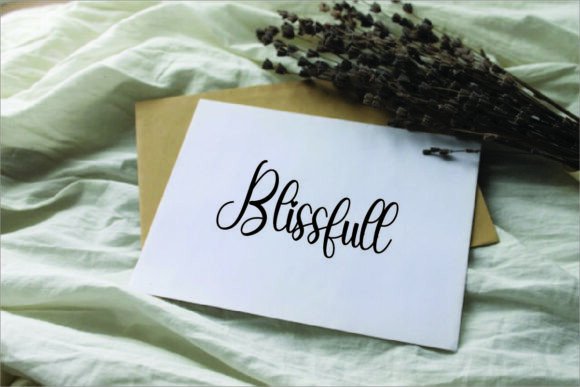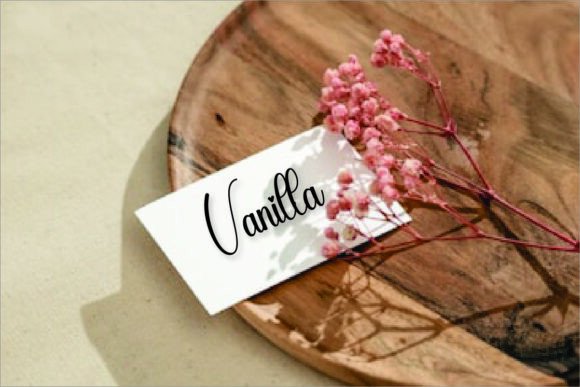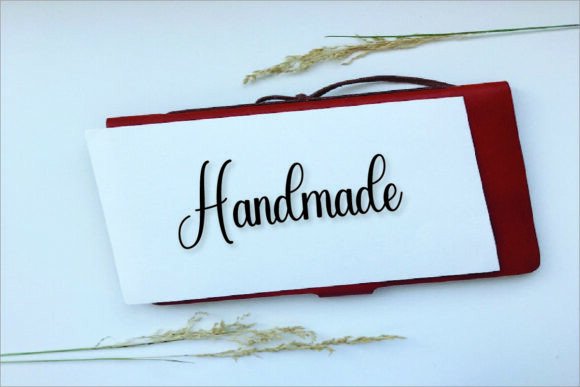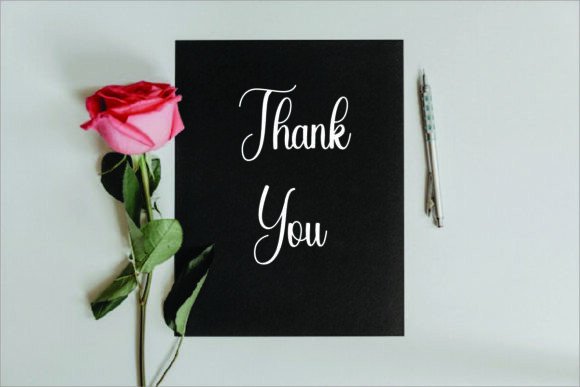
The Quest for the Perfect Handwriting Font: Discovering Caroline
I still remember the design project that led me to Caroline, a simple and natural handwriting font. I was working on a branding project for a new coffee shop, and I needed a font that would convey a warm, friendly vibe. I spent hours scouring the internet for the perfect handwriting font, but nothing seemed quite right. That was when I stumbled upon Caroline, and it instantly became my go-to font for a wide range of design projects.
An Honest Review of Caroline
So, what makes Caroline so special? Let’s dive into the good stuff and a few quirks I’ve discovered.
What I Love About Caroline
- ✨ Simple and natural handwriting style that’s easy to read
- ✅ Great for a wide range of design projects, from branding to social media
- 💕 Works beautifully for quotes, logos, and t-shirt designs
- 🎨 Highly versatile and pairs well with various design elements
While Caroline is an excellent font, there are a few things to keep in mind:
- 🤔 Limited character set compared to some other fonts
- ⚠️ May not work as well for very small font sizes or body text
The Story Behind Caroline
Caroline was designed with the goal of creating a simple, natural handwriting font that would be easy to read and versatile enough for a wide range of design projects. The designer aimed to capture the essence of everyday handwriting, making Caroline perfect for designs that require a personal touch.
| Font Name | Caroline Font |
| Author | AA studio |
| What is Caroline best used for? | Caroline is great for branding, quotes, logos, t-shirt designs, tote bag designs, cards, banners, social media, and more. |
| Does Caroline have any special features? | Yes, Caroline has OpenType features, including ligatures and stylistic alternates, which can add visual interest to your designs. |